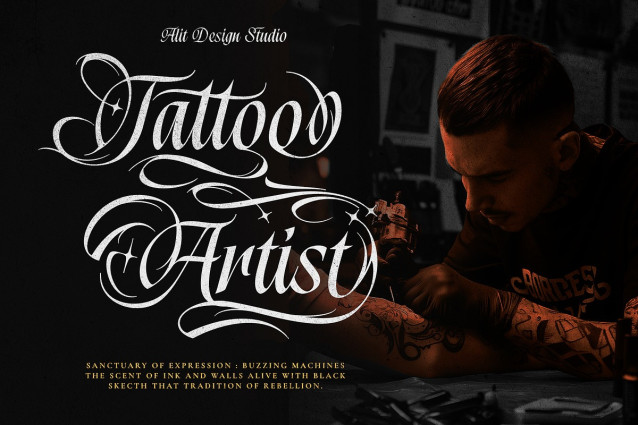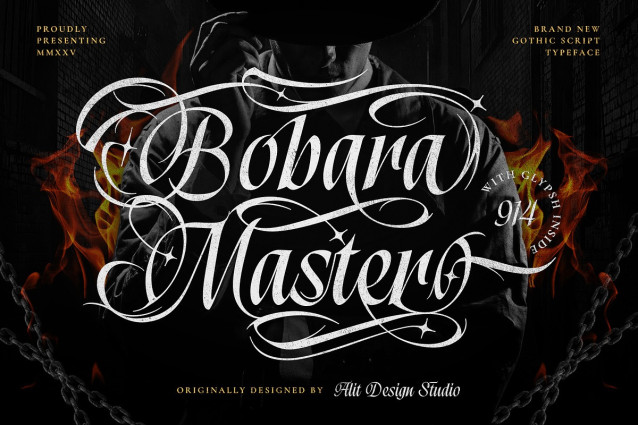
Bobara Master Font
Bobara Master Font, a brand-new script typeface that merges the raw power of blackletter with the elegant flow of custom scripting. Meticulously crafted by Alit Design Studio, Bobara Master is not just a font; it’s a statement of rebellion, artistry, and strength.
With its sharp, aggressive strokes and intricate, flowing swashes, this typeface is designed to command attention. Every character tells a story of shadow and mystery, making it the perfect choice for designs that need to leave a lasting impact. Whether you’re crafting a logo for a tattoo studio, designing apparel for a metal band, or creating branding for a whiskey label, Bobara Master provides an authentic, handcrafted feel that is both timeless and modern.
Dive deep into creative freedom with an arsenal of over 900 glyphs, including a vast array of stylistic sets and alternates. This incredible versatility allows you to customize your text to perfection, ensuring every design is unique. From elaborate, decorative capitals to sharp, legible lowercase letters, you have complete control to create a look that is truly your own.